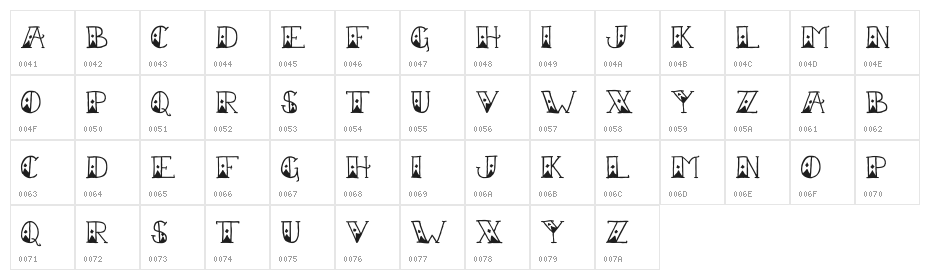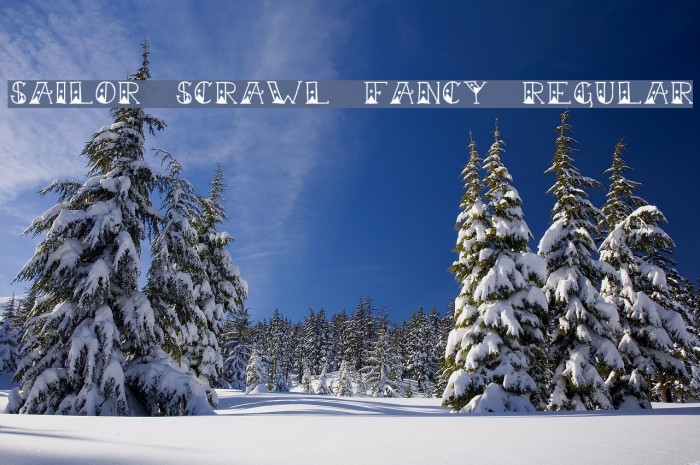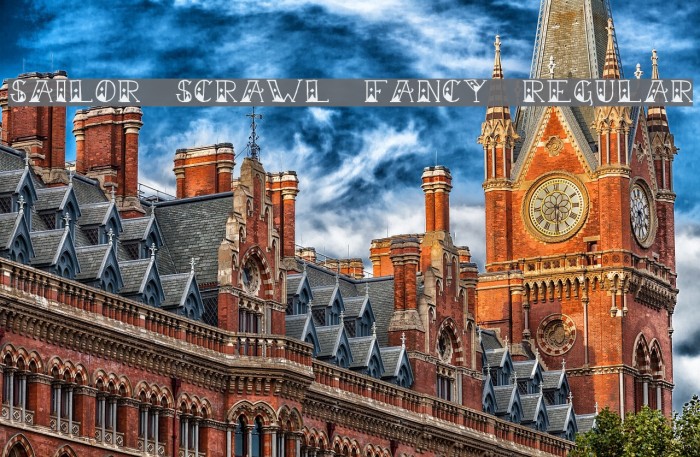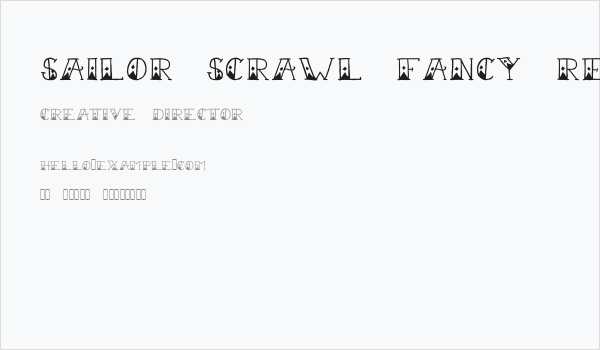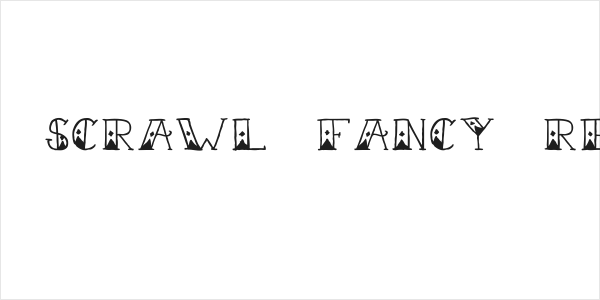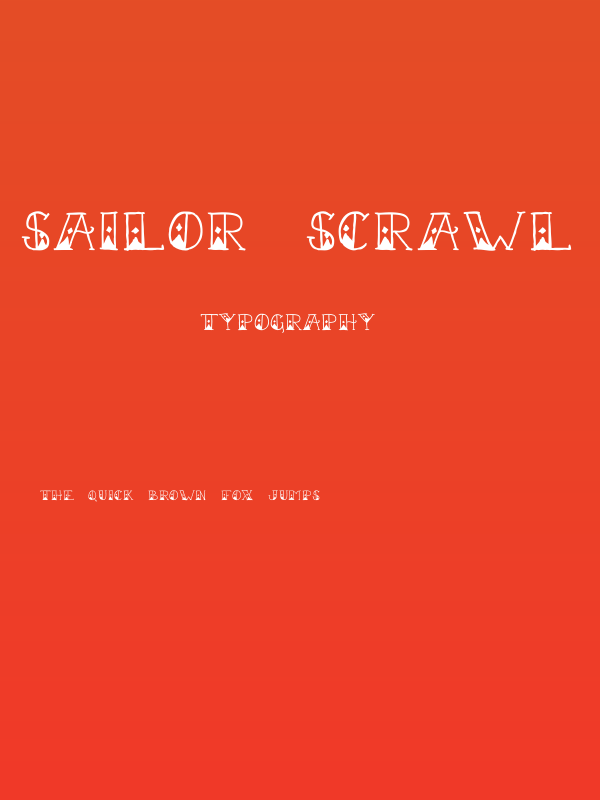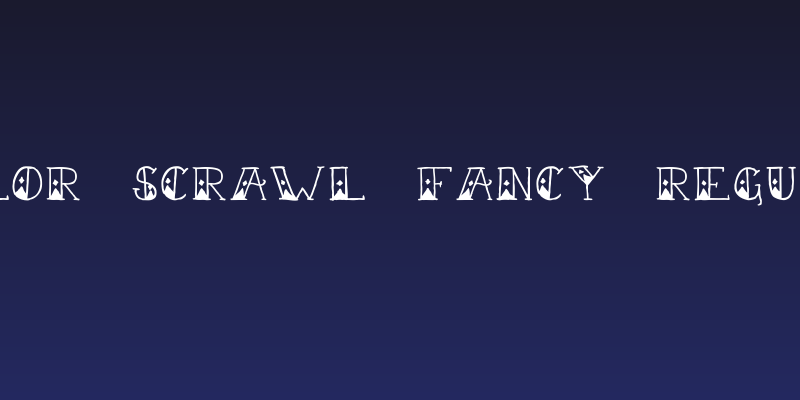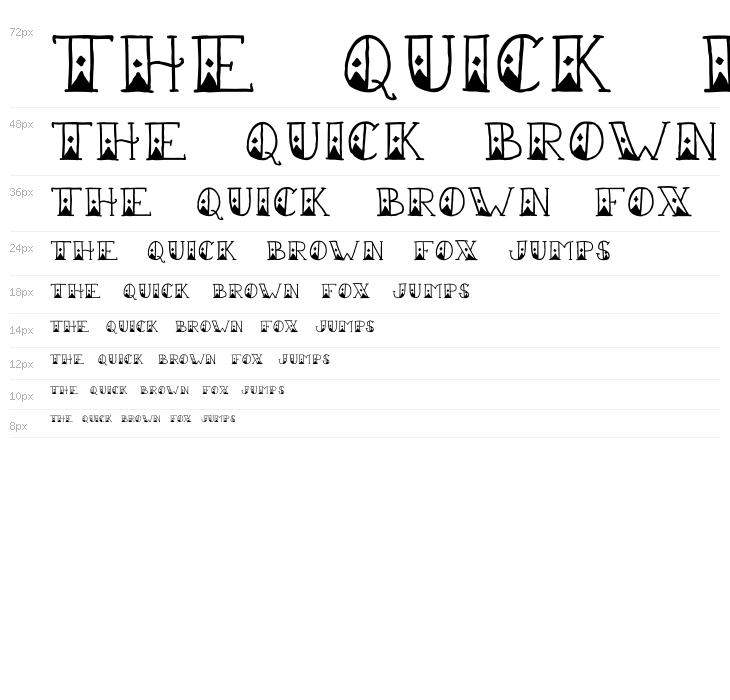
Sailor Scrawl Fancy Regular Font
Sailor Scrawl Fancy Regular Description
This font features a decorative and whimsical style, reminiscent of nautical themes. Each letter is adorned with unique embellishments that resemble anchors or sails, giving it a distinct maritime feel. The uppercase letters are bold and prominent, while the lowercase letters maintain the same decorative elements, ensuring consistency throughout. The numbers and special characters follow the same design principles, making them visually cohesive with the alphabet. This font is ideal for projects that require a playful yet sophisticated touch, such as themed events, posters, or branding materials that aim to evoke a sense of adventure and the sea.
| Proposed Projects | Ideal for themed events, posters, branding materials, and any project seeking a nautical or adventurous aesthetic. |